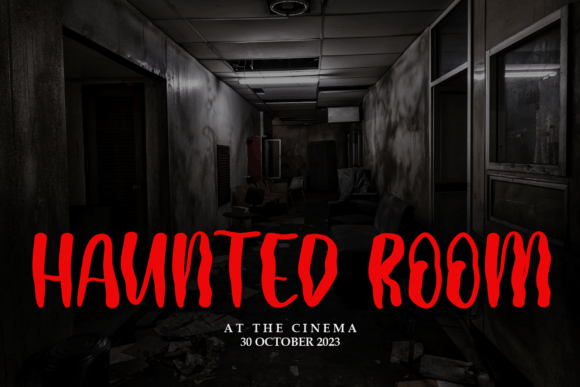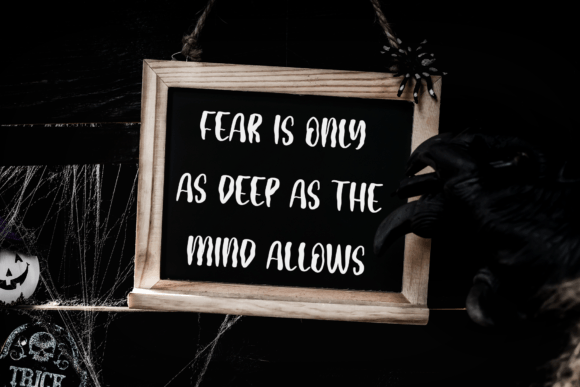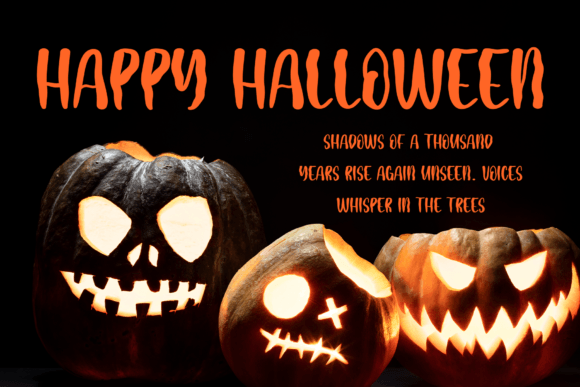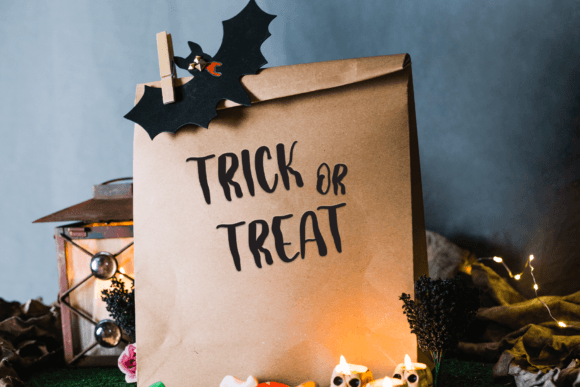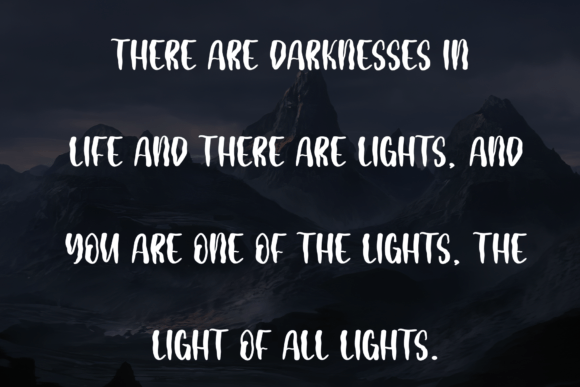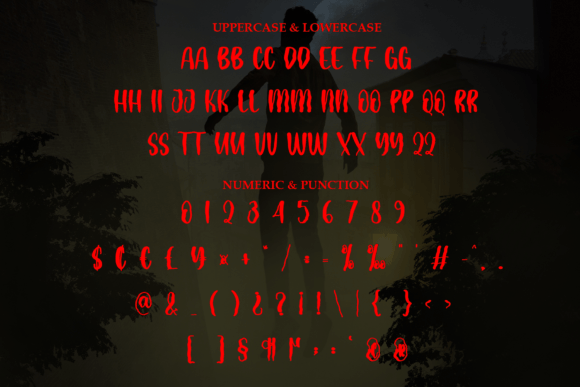
Introduction to Scary Dream Font
Have you ever had a dream that left you shivering long after you woke up? The kind of dream that lingered in your mind, refusing to be shaken off? That’s the kind of eerie atmosphere you can create with the Scary Dream Font. This spine-chilling script font is a design resource that’s sure to send chills down your spine, and we’re excited to dive into its haunting world.
About Scary Dream Font
As designers, we’re always on the lookout for unique and high-quality design resources to add an extra layer of depth to our creative projects. And that’s exactly what the Scary Dream Font offers – a free download that can be used on a transparent background to create an unsettling ambiance. Whether you’re working on a spooky invitation or a chilling poster, this font is sure to bring your nightmares to life with each letter.
Unlocking the Power of Scary Dream Font
With its sinister curls and ominous strokes, the Scary Dream Font is the perfect addition to any design project that demands a ghostly, otherworldly vibe. So why settle for ordinary when you can unleash your creativity with this hauntingly beautiful font? Download the Scary Dream Font today and transform your text into an experience that will leave your audience shivering with delight.
Key Features of Scary Dream Font
- Unique Gothic-inspired design with bold lines and eerie details, perfect for a creative project.
- Perfect for designers and artists working on a creative project, such as horror-themed posters, spooky decorations, or haunted house designs.
Honest Review: Scary Dream Font
I recently had the chance to work with the Scary Dream Font, and I’m excited to share my honest thoughts with you. As a designer, I’m always on the lookout for high-quality design resources that can elevate my creative projects.
One of the things that works well with this font is its ability to create a spooky atmosphere. The combination of bold lines and eerie details makes it perfect for Halloween-themed projects or any design that requires a sense of foreboding. ✨ The transparent background option also makes it easy to use in various design applications.
Some limitations I’ve encountered with the Scary Dream Font include:
- ⚠️ Limited font styles: While the font has a unique style, it’s a bit limited in terms of font styles. This may not be ideal for designers who prefer a wider range of options.
- ⚠️ Not suitable for all projects: Due to its spooky theme, the font may not be suitable for all types of projects, especially those that require a more professional or serious tone.
Overall, I’m impressed with the Scary Dream Font’s ability to add a touch of eeriness to my designs. While it may have some limitations, it’s definitely a valuable addition to my design resource library. If you’re looking for a free download that can add some creativity to your projects, I’d recommend giving it a try!
For optimal results, use the Scary Dream Font in conjunction with a high-quality design project. Some common use cases include horror movie posters, spooky themed invitations, and Halloween-themed decorations.
By incorporating Scary Dream Font into your design, you can add a touch of sophistication and creativity to your projects. Its unique style and high-quality design make it a valuable asset for any designer. So why not take the first step and download Scary Dream Font today? With its limitless possibilities, it’s the perfect design resource to help you unleash your creativity and take your projects to new heights.